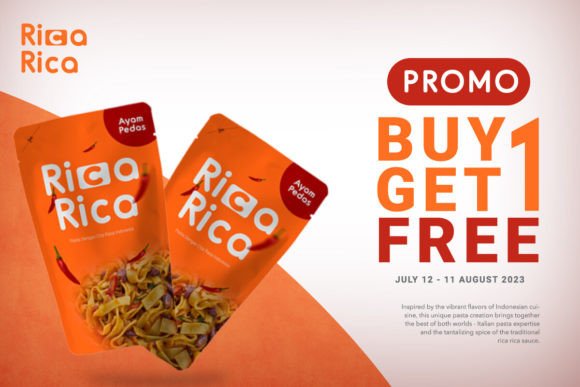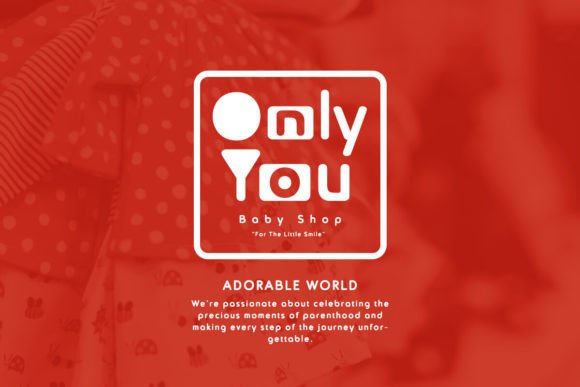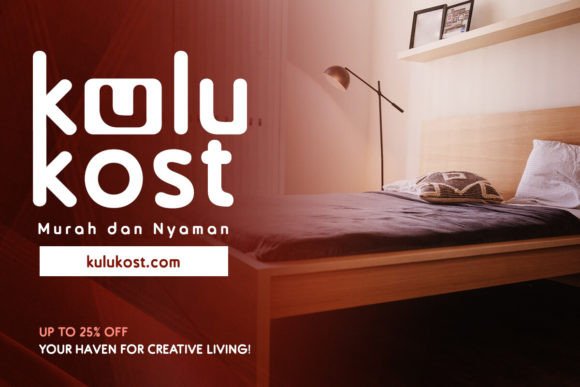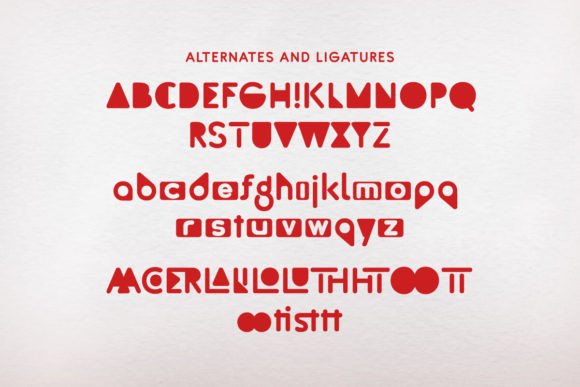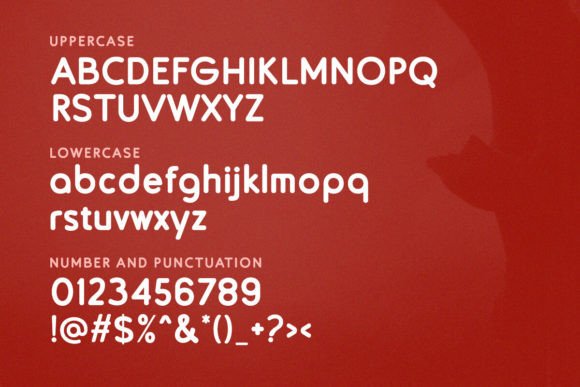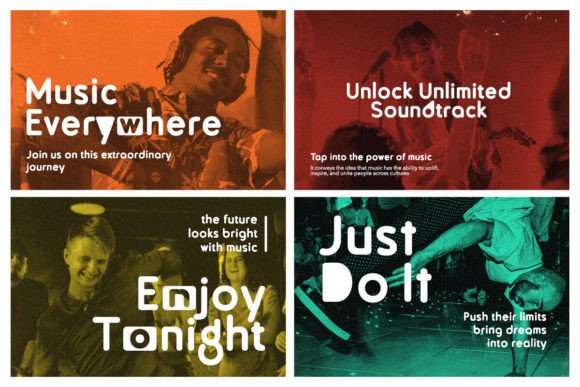
Introducing Goodpast Font: The Ultimate Choice for Modern Designs
In the world of design, a font can make or break the visual appeal of a project. If you’re looking for a font that combines minimalist simplicity with futuristic flair, look no further than Goodpast Font. This innovative font is based on rounded sans serif, with unique and twisted alternates that will take your logo designs to the next level.
What Makes Goodpast Font Stand Out?
Goodpast Font is not just another ordinary font. Its minimalist yet futuristic design makes it perfect for designers and crafters who want to create modern and eye-catching logos, posters, and branding materials. The font’s rounded sans serif base gives it a friendly and approachable feel, while its twisted alternates add a touch of sophistication and elegance.
Unique Features of Goodpast Font
So, what sets Goodpast Font apart from other fonts? Here are some of its unique features:
- Twisted Alternates: Goodpast Font comes with unique and twisted alternates that allow you to add a creative spin to your designs. These alternates can be used to create visually appealing logos and branding materials that stand out from the crowd.
- Creative Ligature: The font also includes creative ligatures that add an extra layer of sophistication to your designs. Ligatures are special characters that combine two or more letters into a single glyph, creating a seamless and cohesive look.
- Multilingual Support: Goodpast Font supports multiple languages, making it a versatile choice for designers who work on international projects.
Use Cases for Goodpast Font
Goodpast Font is a versatile font that can be used in a variety of design projects, including:
- Logo Design: The font’s unique and twisted alternates make it perfect for creating modern and eye-catching logos.
- Branding: Goodpast Font can be used to create consistent branding materials, such as business cards, letterheads, and brochures.
- Poster Design: The font’s futuristic design makes it perfect for creating posters and flyers that require a sci-fi look.
- Digital Designs: Goodpast Font can be used in digital designs, such as website headers, social media graphics, and mobile app interfaces.
Why Designers and Crafters Love Goodpast Font
Designers and crafters love Goodpast Font for its unique combination of minimalist simplicity and futuristic flair. The font’s versatility and multilingual support make it a popular choice for designers who work on international projects. Additionally, the font’s creative ligatures and twisted alternates provide endless possibilities for creative expression.
Tips for Using Goodpast Font
Here are some tips for using Goodpast Font in your design projects:
- Experiment with Twisted Alternates: Don’t be afraid to experiment with the font’s twisted alternates to create unique and visually appealing designs.
- Use Creative Ligatures: Use the font’s creative ligatures to add an extra layer of sophistication to your designs.
- Pair with Other Fonts: Goodpast Font can be paired with other fonts to create a unique and cohesive look.
In conclusion, Goodpast Font is a versatile and innovative font that is perfect for designers and crafters who want to create modern and eye-catching designs. Its unique combination of minimalist simplicity and futuristic flair, along with its creative ligatures and twisted alternates, make it a popular choice for a variety of design projects. Whether you’re designing a logo, branding materials, or digital designs, Goodpast Font is the ultimate choice for creating stunning and effective designs.